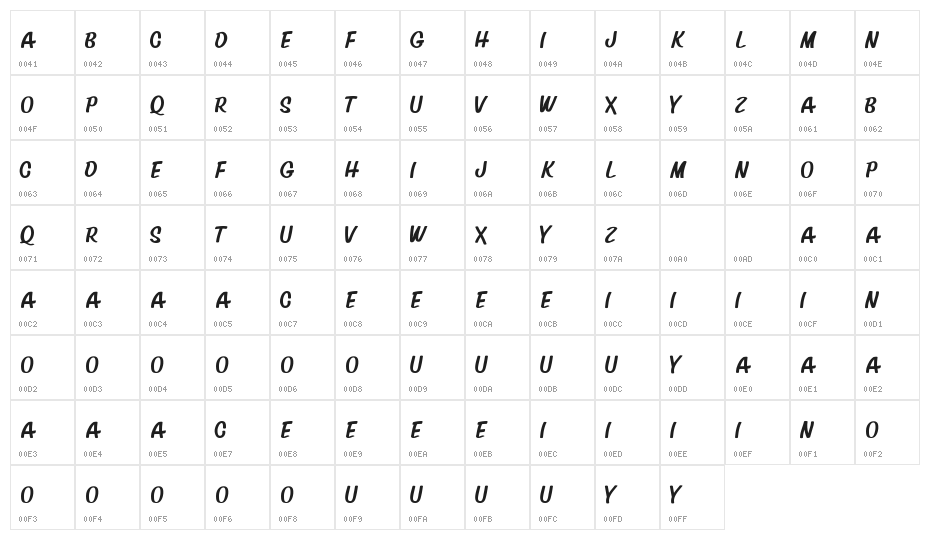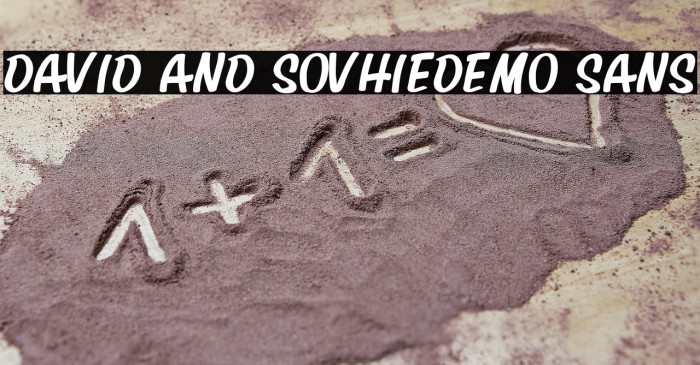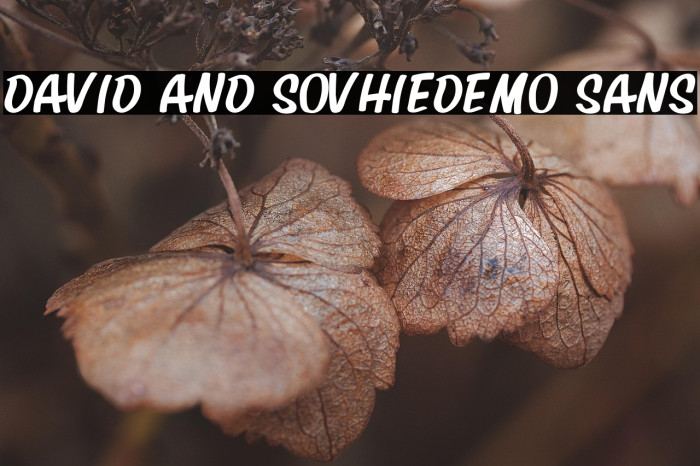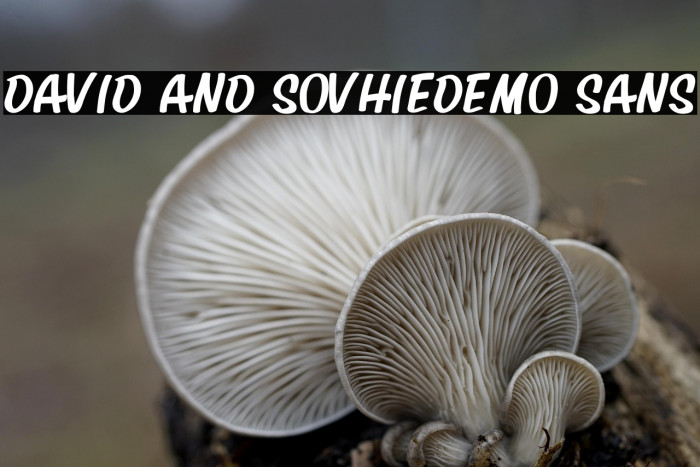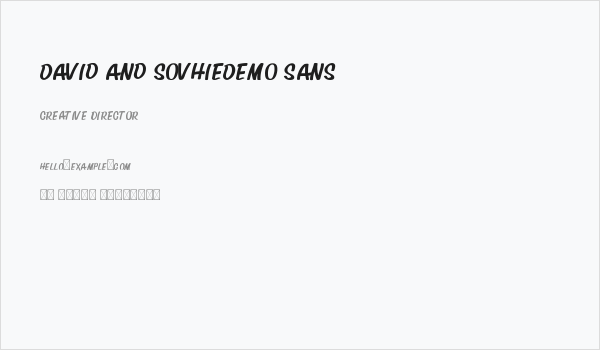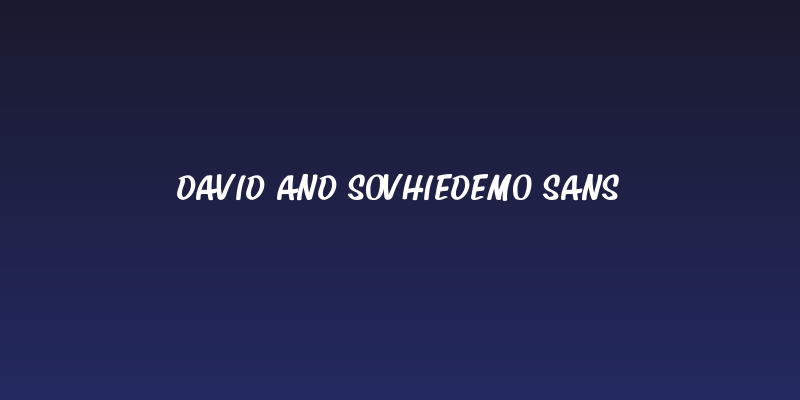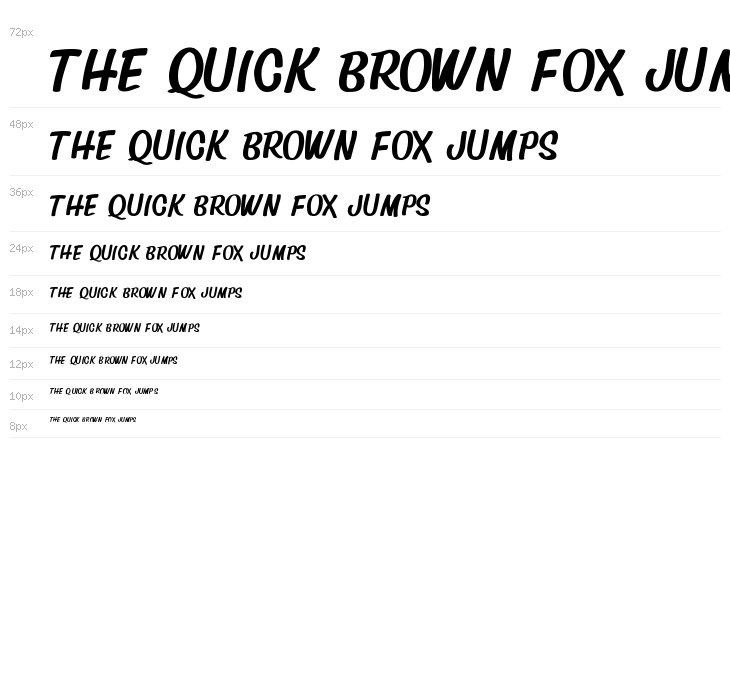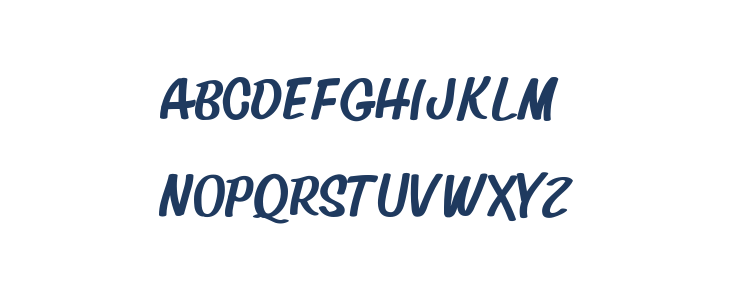
David And SovhieDEMO Sans Font
David And SovhieDEMO Sans Description
This font features a bold and dynamic style with a strong presence. The letters are slightly slanted, giving it a sense of motion and energy. Each character is well-defined with smooth curves and a consistent stroke width, contributing to its legibility. The overall look is modern and stylish, making it suitable for a variety of creative applications. The uppercase letters are prominent and commanding, while the lowercase letters maintain a harmonious balance. This font's design is versatile, allowing it to be used effectively in both digital and print media.
| Proposed Projects | Ideal for branding, advertising, headlines, and social media graphics. |